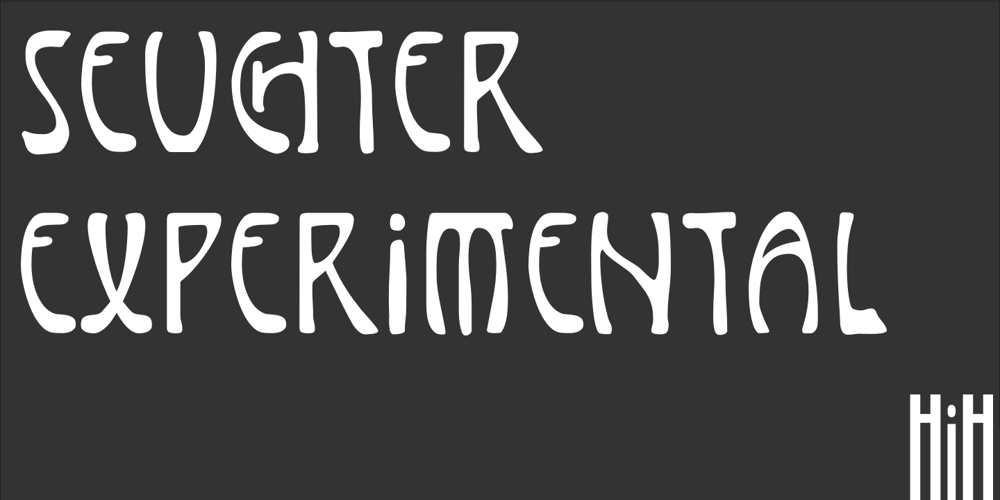
Seuchter Experimental
Seuchter Experimental font
Seuchter Experimental Font Family was designed by Bruno Seuchter and published by HiH. Seuchter Experimental contains 1 styles and family package options. Seuchter Experimental is a product of the fertile Jugendstil period in Austria. Drawn by Bruno Seuchter, about whom little biographical information is available, the design first appeared in Seuchter’s publication, Die Fläche, in 1902. Die Fläche means “surface or expanse,” presumably a reference to a “tabula rasa” or clean slate. The implication is one of starting anew, rejecting the past and searching for fresh, different modes of visual expression — which is exactly what Art Nouveau attempted to do. Seuchter Experimental is a quirky and light-hearted font. Ligatures include AT, AV, CH, CK, FJ, LO and ST. Although basically an all-cap font, several of the accented letters in the lower case position represent the oft-seen desire to keep the accents below cap-height. The a-umlaut at 228 and u-umlaut at 252 reflect Seuchter’s original design. For a discussion of the difference between a diaresis and an umlaut, see Appendix B of Bringhurst’s The Elements of Typographical Style. In the meantime, give this font room to breathe.